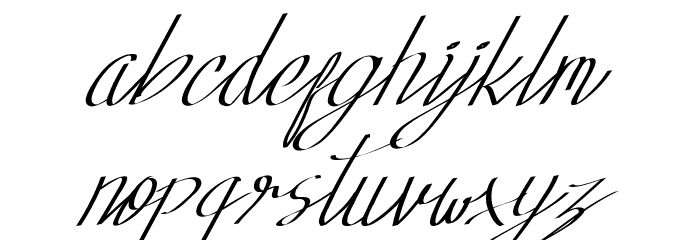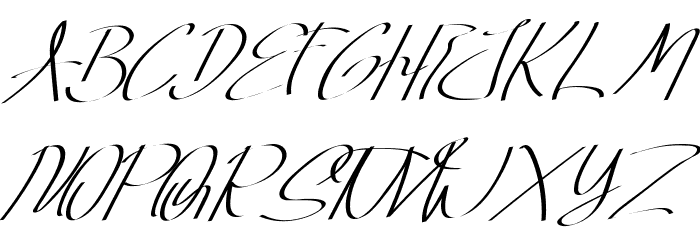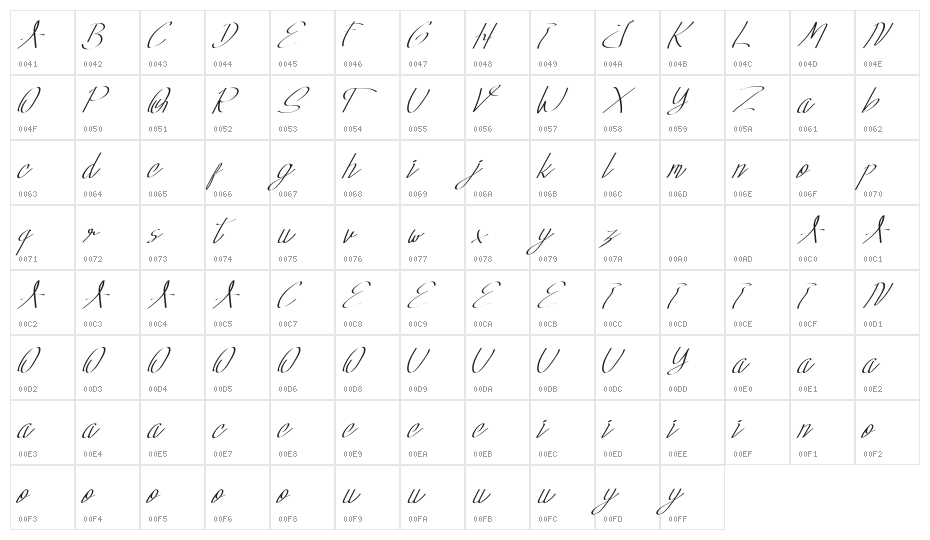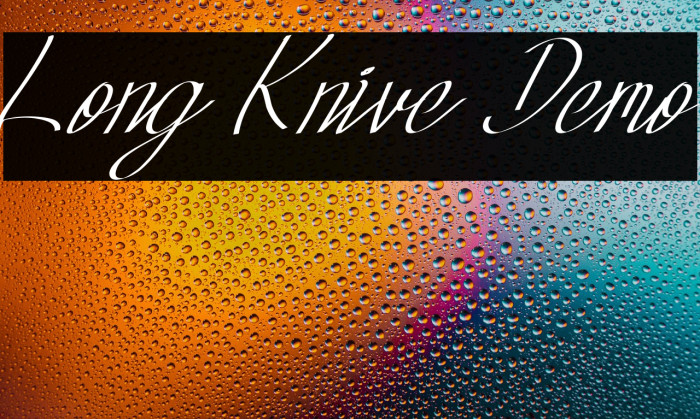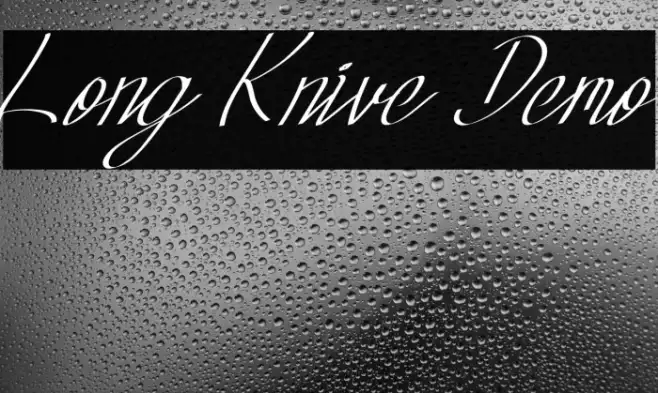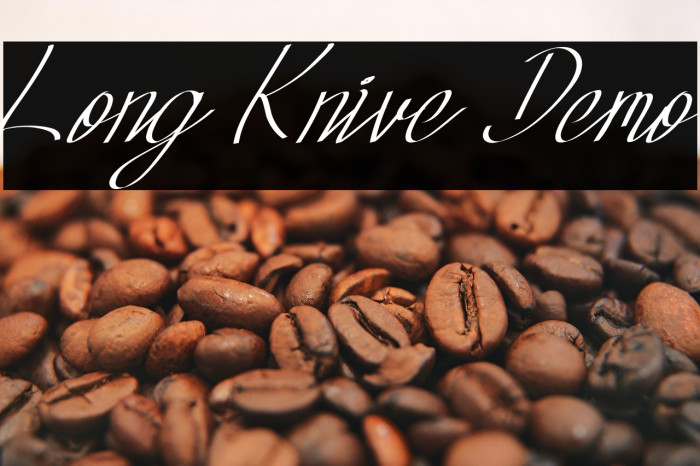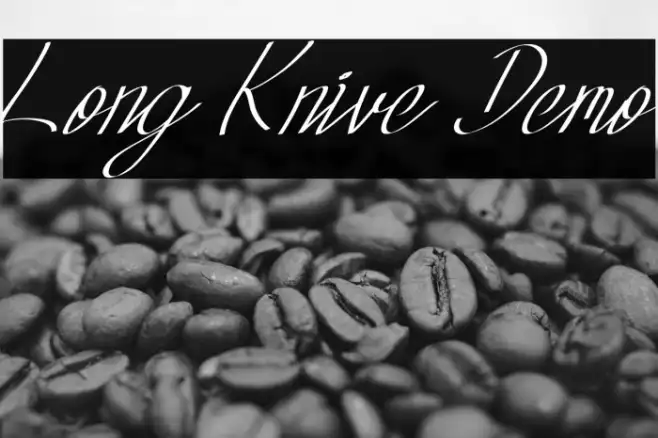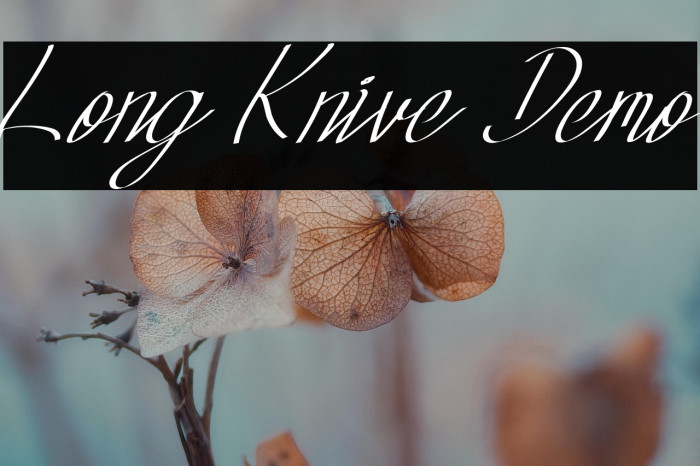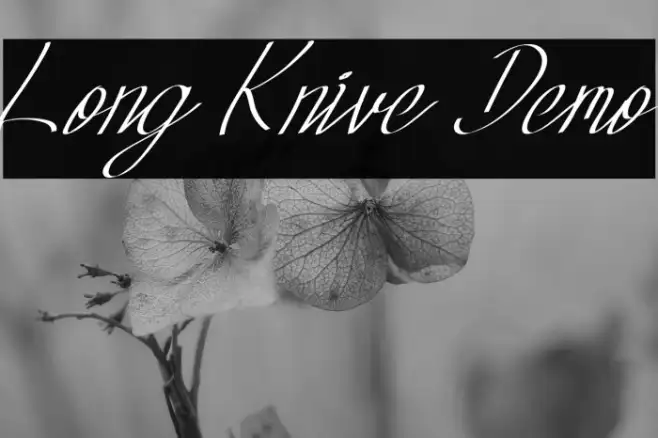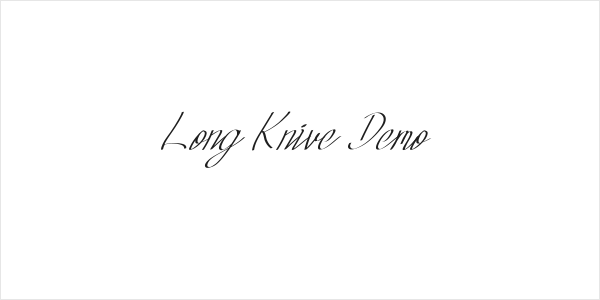
Long Knive Demo Font
This font features an elegant and flowing script style, characterized by its fluid, cursive strokes and dynamic letterforms. The uppercase letters are particularly striking, with elongated and sweeping lines that convey a sense of motion and grace. The lowercase letters maintain a consistent style, complementing the uppercase with their own subtle flourishes. The overall appearance is sophisticated and artistic, making it ideal for projects that require a touch of elegance and creativity. The font's unique style is both modern and timeless, suitable for a variety of design applications.
An elegant and flowing script font with dynamic, cursive strokes.
- Proposed Projects: Ideal for wedding invitations, elegant branding, artistic posters, and decorative headings.
- Overall Style: Elegant, Artistic
- Use Case: Headlines, Invitations, Artistic projects